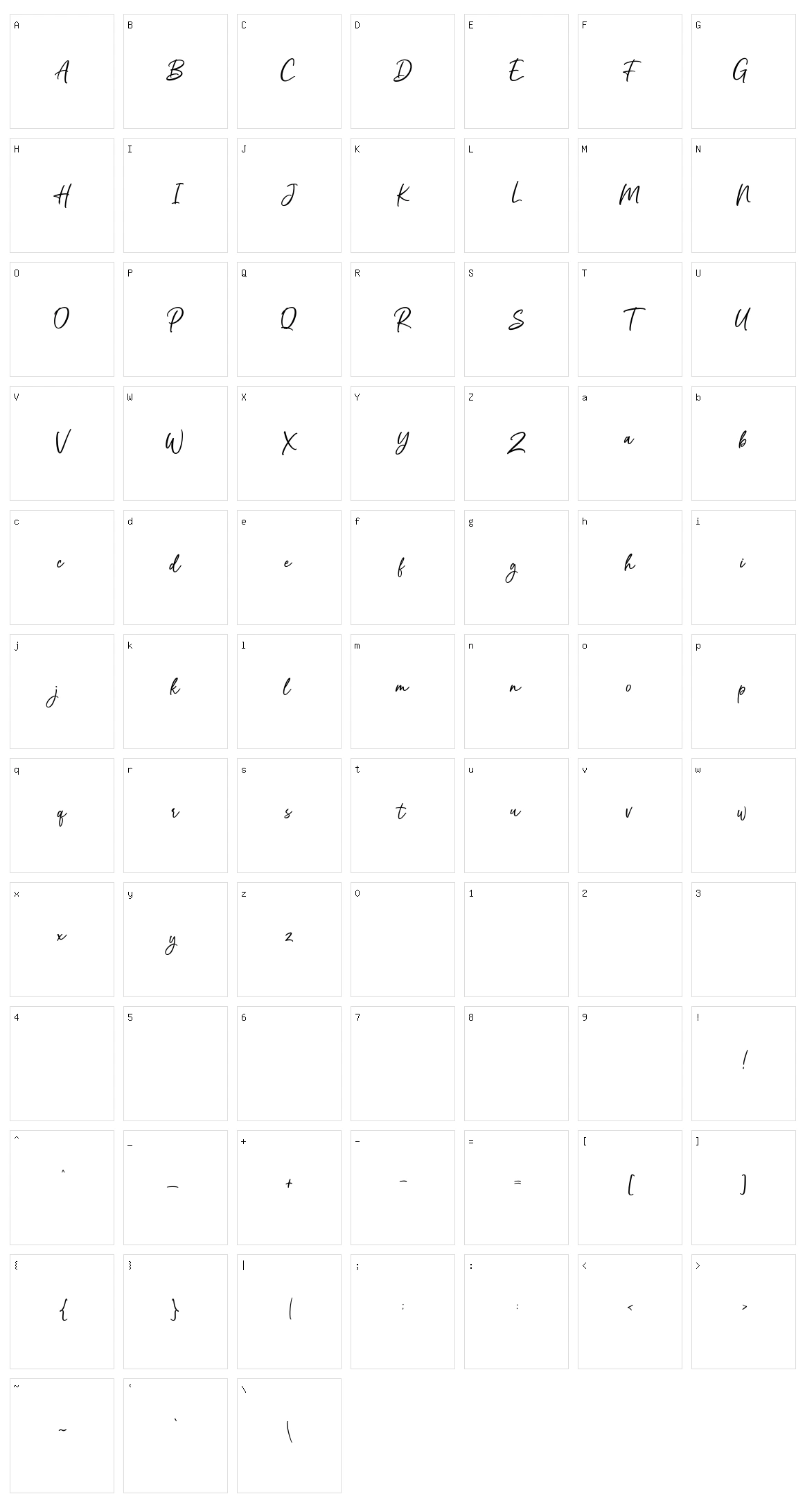
The free font Sonlight Script is carefully designed by Sizimon.id, showcasing a thoughtful balance of creativity and usability and falls under the Script font style. When you download the ZIP file, it contains only 474.86 KB of font files, making it lightweight and quick to download. Please review the license details below to understand permitted usage and distribution rights. If license information is not available, we recommend using this font for personal projects only or contacting the author directly for commercial usage permissions.